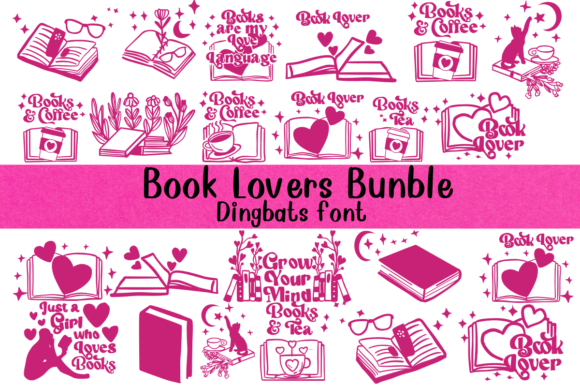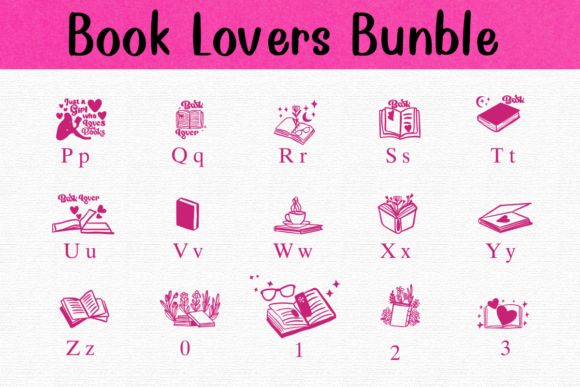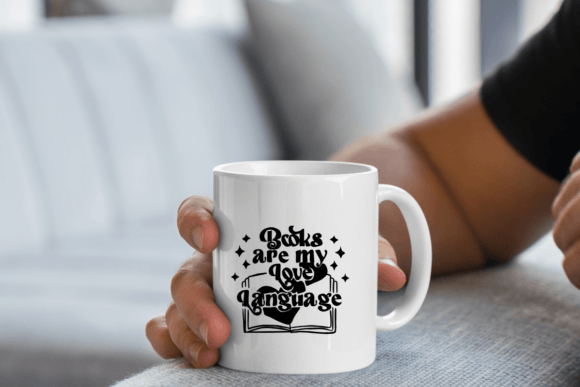
Book Lovers Bundle Font
The “Book Lovers Bundle” is a fun and creative dingbat font. Instead of letters, it features little pictures and symbols that are all about books and reading. This font includes charming quotes and images perfect for book enthusiasts. You can use it to add a unique, book-themed touch to your projects, like decorating bookmarks, posters, and more.